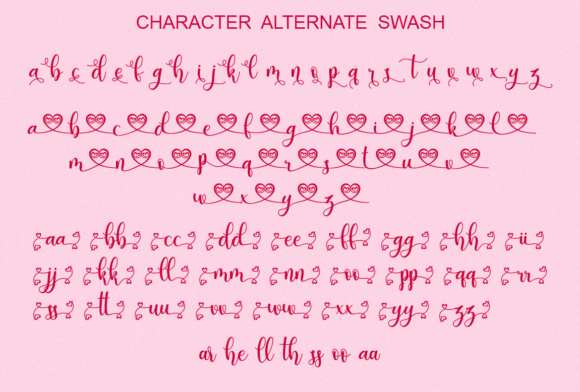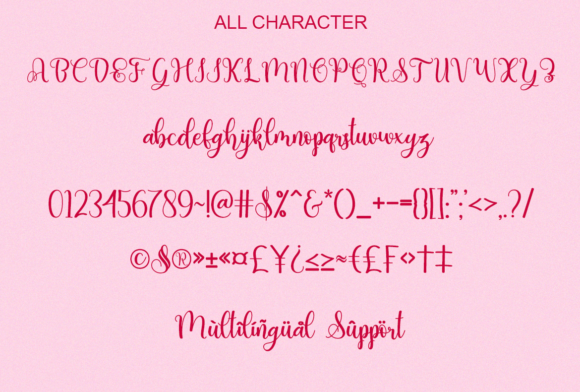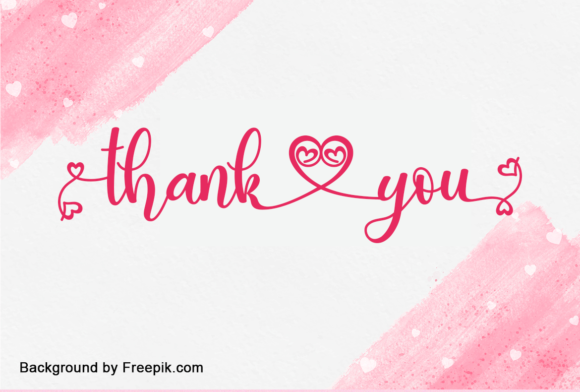
About Hello Bucin Font
Hello Bucin is a lovely and romantic cursive font that exudes elegance and charm. With its delicate and flowing letterforms, this font adds a touch of beauty and romance to any design project. Whether you’re creating wedding invitations, love letters, greeting cards, or any other creative endeavor, Hello Bucin will infuse your work with a joyful and romantic atmosphere.
The cursive nature of Hello Bucin’s lettering brings a sense of fluidity and grace to your designs. Each character is meticulously crafted with attention to detail, resulting in a font that is both visually appealing and easy to read. The swashes and alternate glyphs available in the font’s PUA encoding further enhance its versatility, allowing you to add decorative elements and flourish to your text effortlessly.
With Hello Bucin, you can effortlessly elevate a variety of design ideas. Whether you’re designing romantic-themed projects, creating personalized stationery, or even crafting branding materials for a love-inspired brand, this font will add a touch of elegance and romance. Its dainty and cursive style brings a sense of intimacy and sophistication to your designs.
The joyful and romantic nature of Hello Bucin makes it an excellent choice for projects that aim to evoke emotions and create a warm and loving ambiance. Its elegant curves and graceful strokes create an inviting and captivating visual experience. Whether your design is meant to be printed or shared digitally, Hello Bucin will shine and leave a lasting impression.
As you explore the possibilities with Hello Bucin, you’ll discover how it adds a delightful and romantic touch to your projects. Its PUA encoding provides you with easy access to a variety of glyphs and swashes, allowing you to customize and embellish your text effortlessly. With Hello Bucin, you have the freedom to express your creativity and create designs that are truly unique.
Embrace the beauty and romance that Hello Bucin brings and watch as it transforms your creative ideas into stunning and captivating creations. Let its dainty and cursive style enchant your audience and create an unforgettable experience. Enjoy the process of designing with Hello Bucin and let it add a joyful and romantic touch to each of your projects!